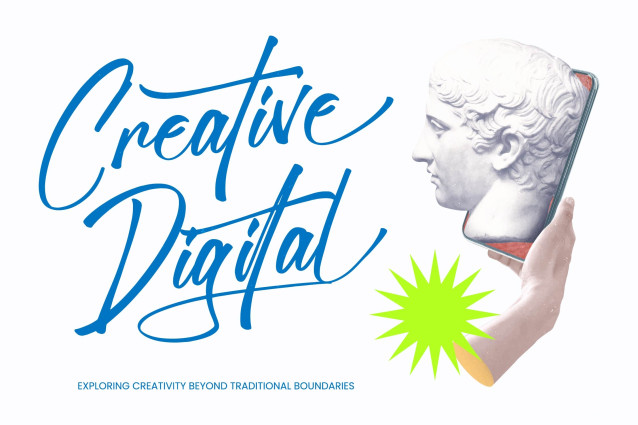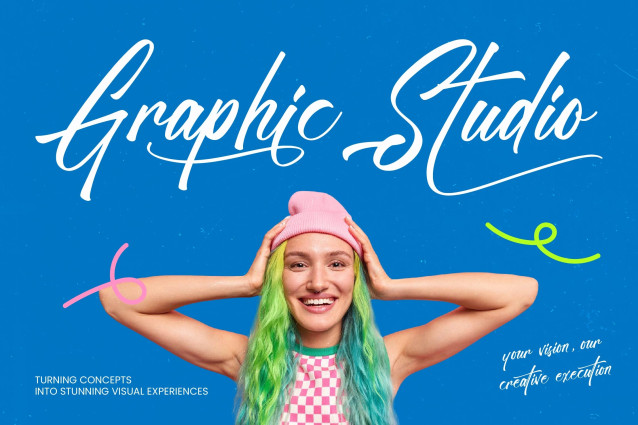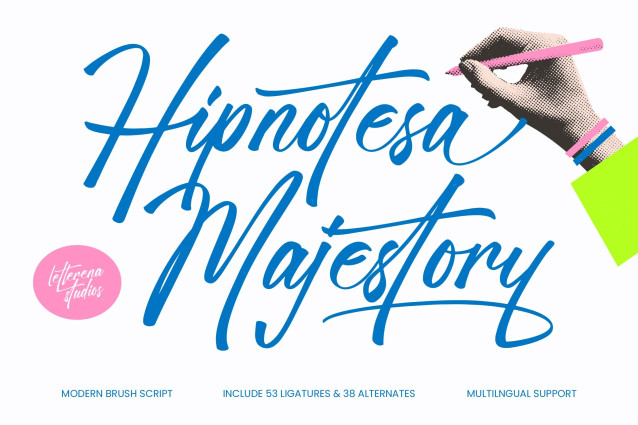
Hipnotesa Majestory – Modern Brush Script is a masterpiece of contemporary calligraphy, offering a dynamic aesthetic that commands attention instantly. This high-impact typeface features fluid, hand-drawn strokes that bring an authentic, artistic touch to any digital or print canvas. By blending organic textures with a modern structure, Hipnotesa Majestory – Modern Brush Script ensures your message is delivered with unparalleled visual rhythm and personality.
Unlock limitless creative potential through a rich array of custom typographic features. Designed for maximum flexibility, Hipnotesa Majestory – Modern Brush Script includes an impressive library of 53 ligatures and 38 stylistic alternates. These professional-grade additions allow designers to create bespoke lettering that feels truly unique and custom-made. Whether you are aiming for a bold headline or a delicate signature, the versatility of Hipnotesa Majestory – Modern Brush Script provides the necessary tools to refine every detail of your composition.